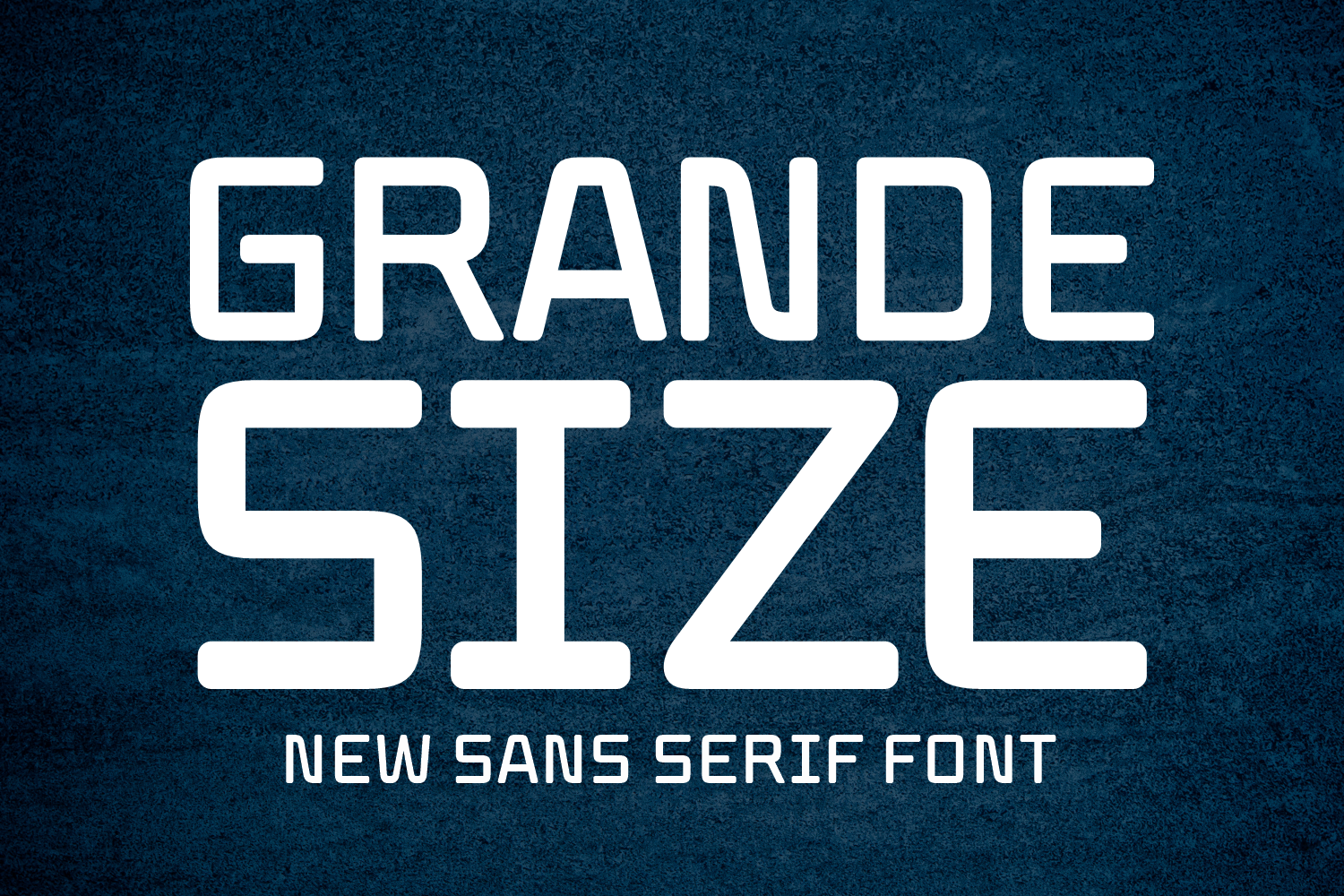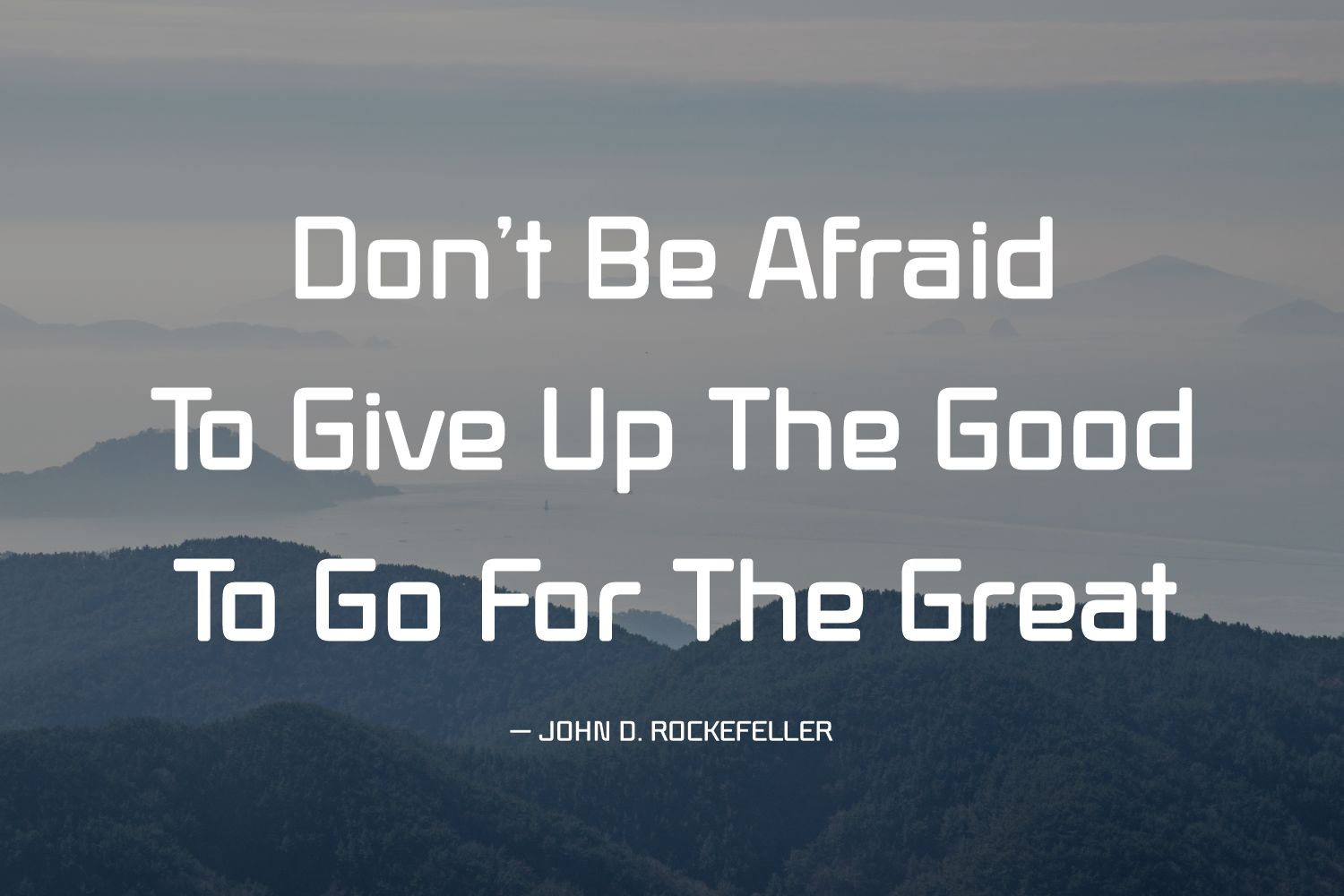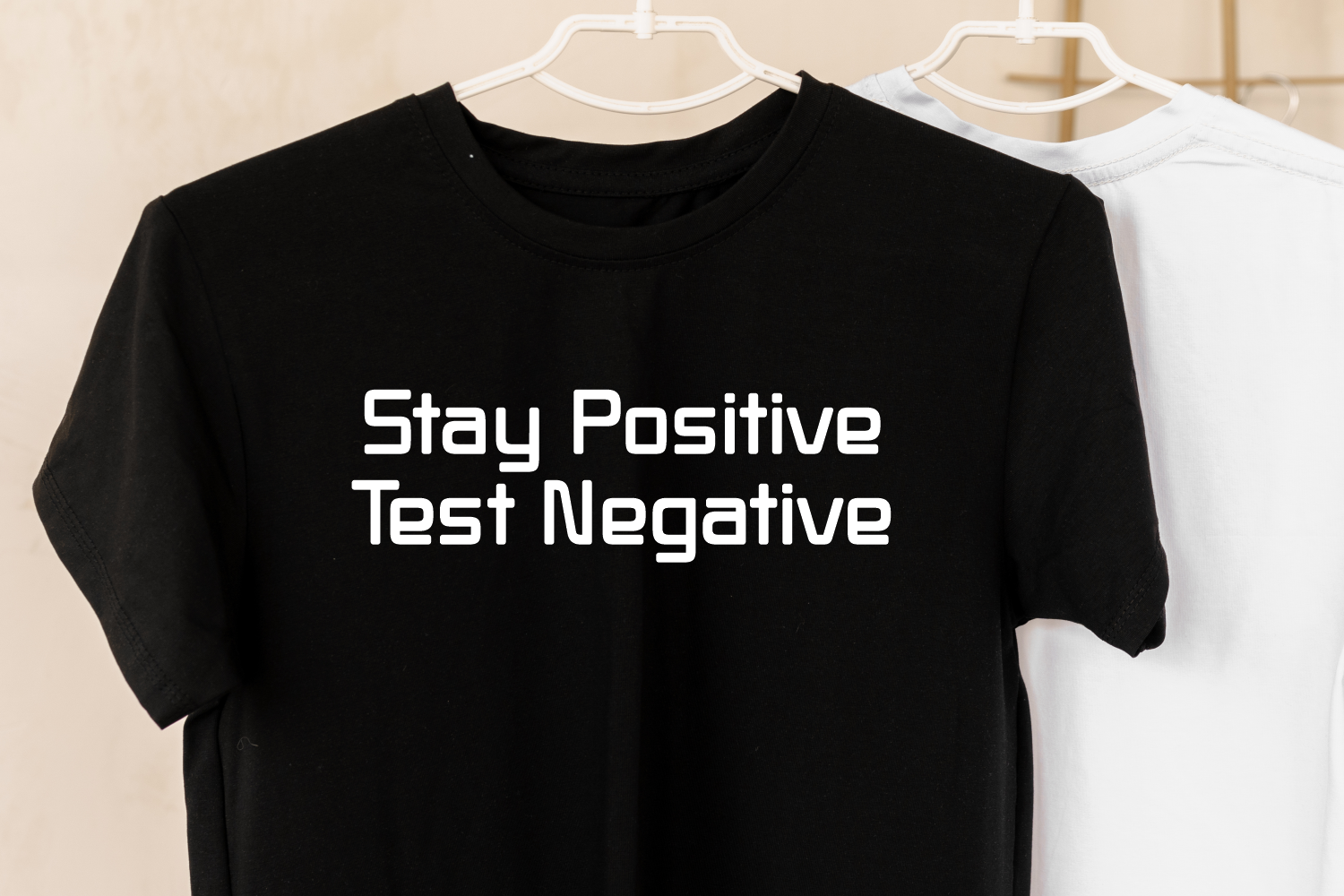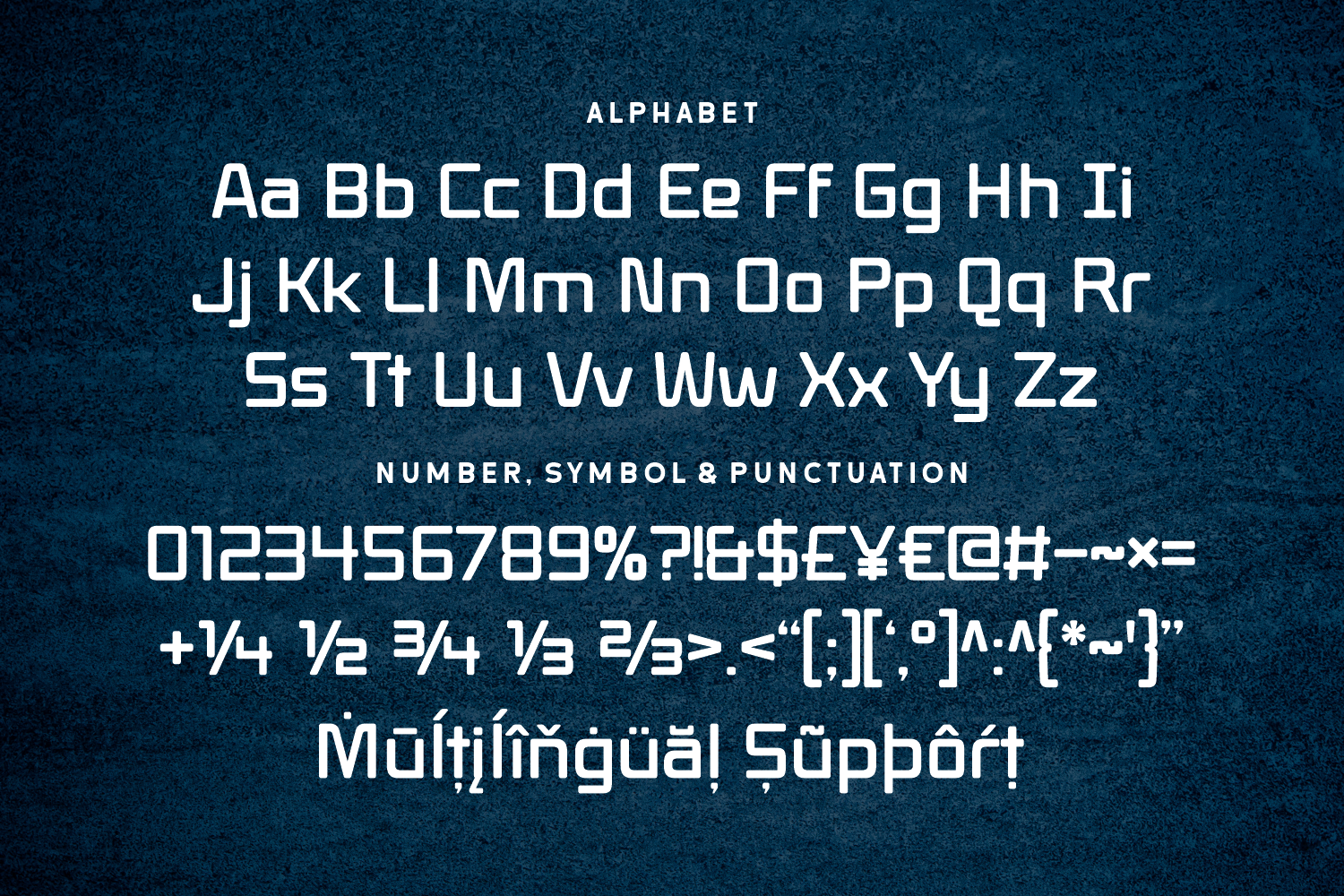
Grande Size is a powerful and futuristic sans-serif typeface with squared forms and softened edges. Designed for display use, it’s perfect for sports branding, esports, posters, and bold tech-inspired graphics that need a strong presence.